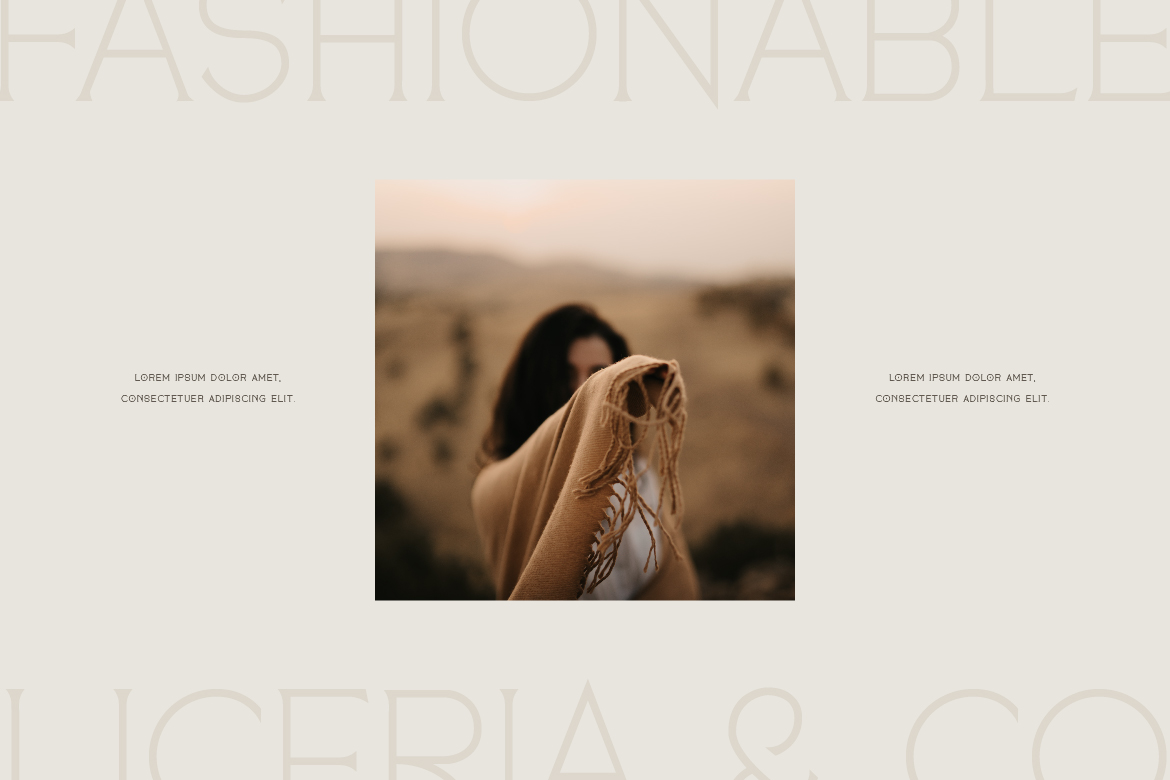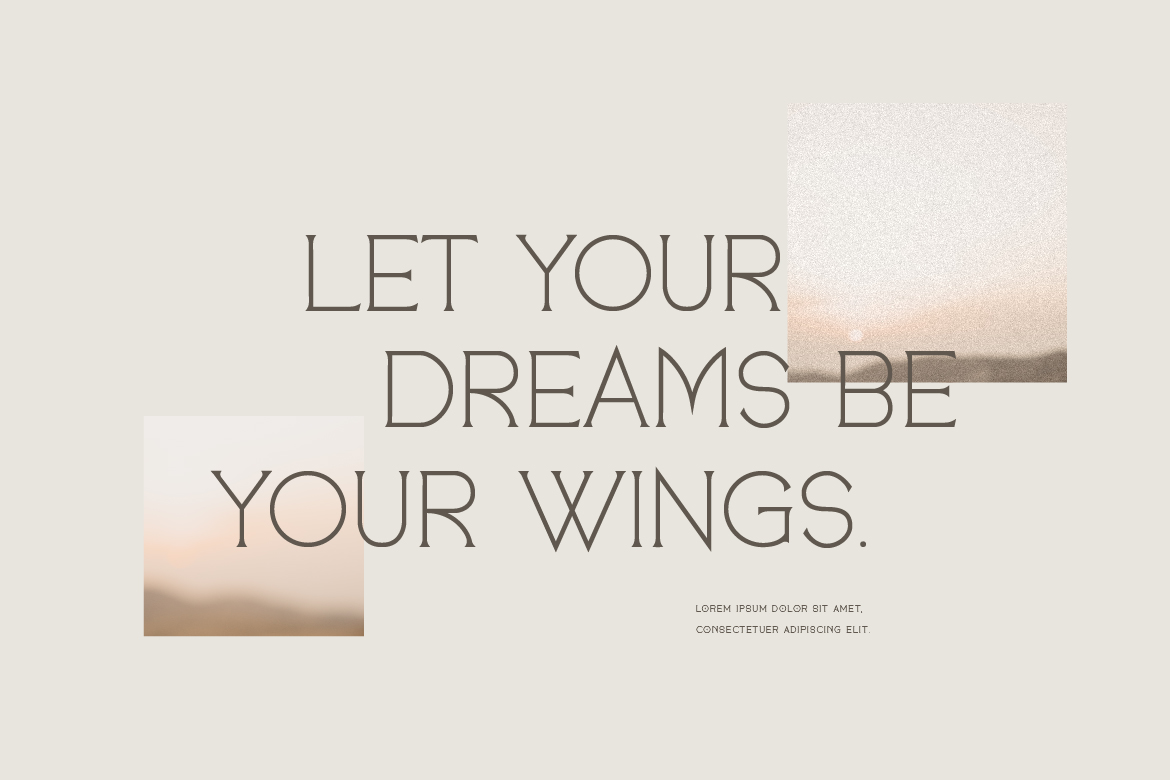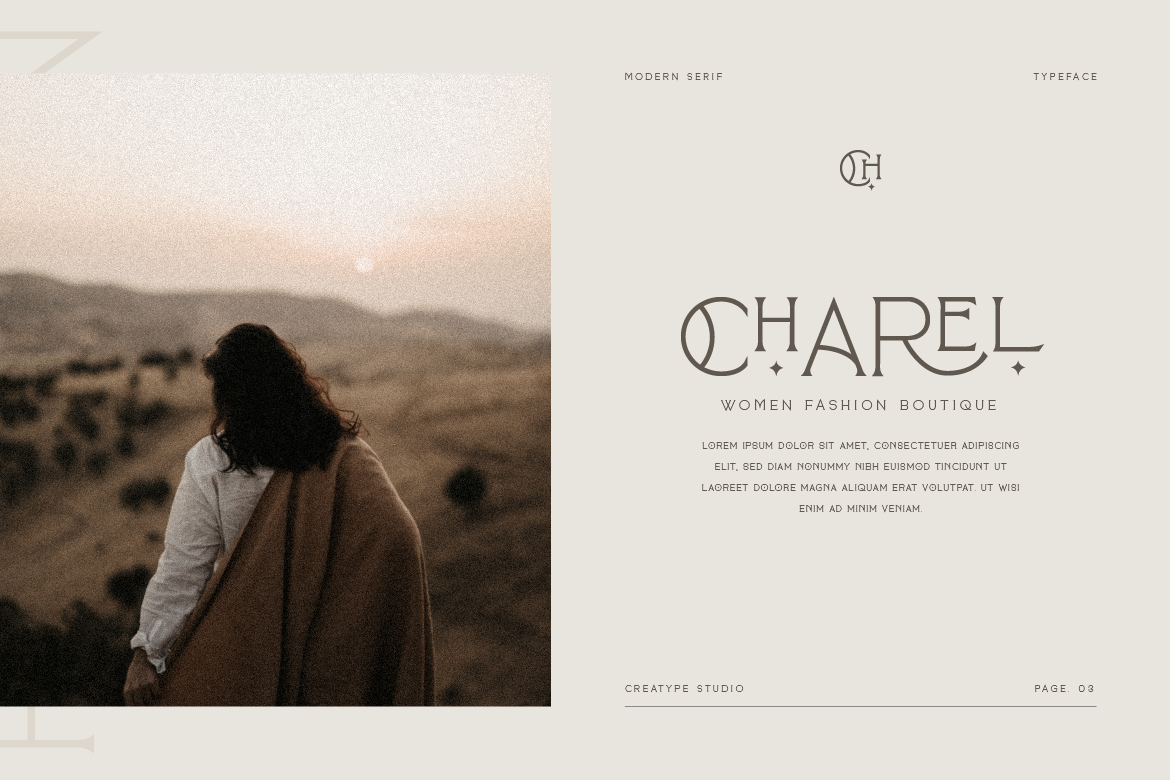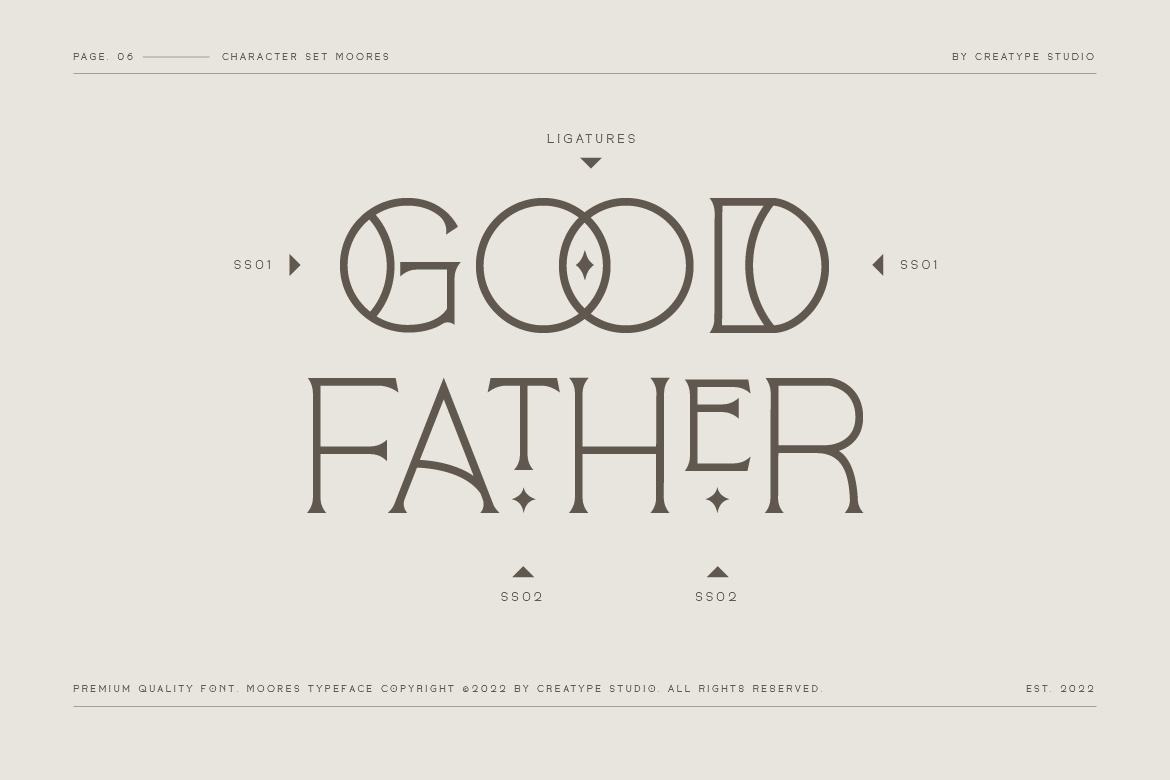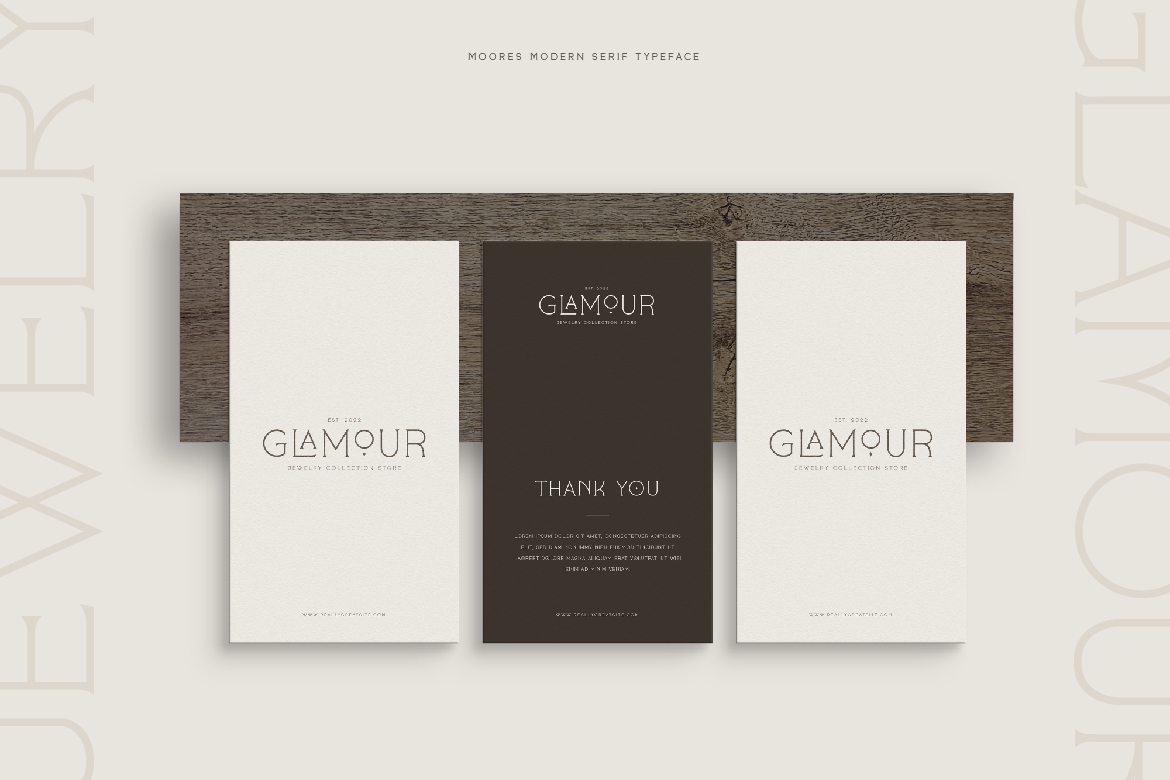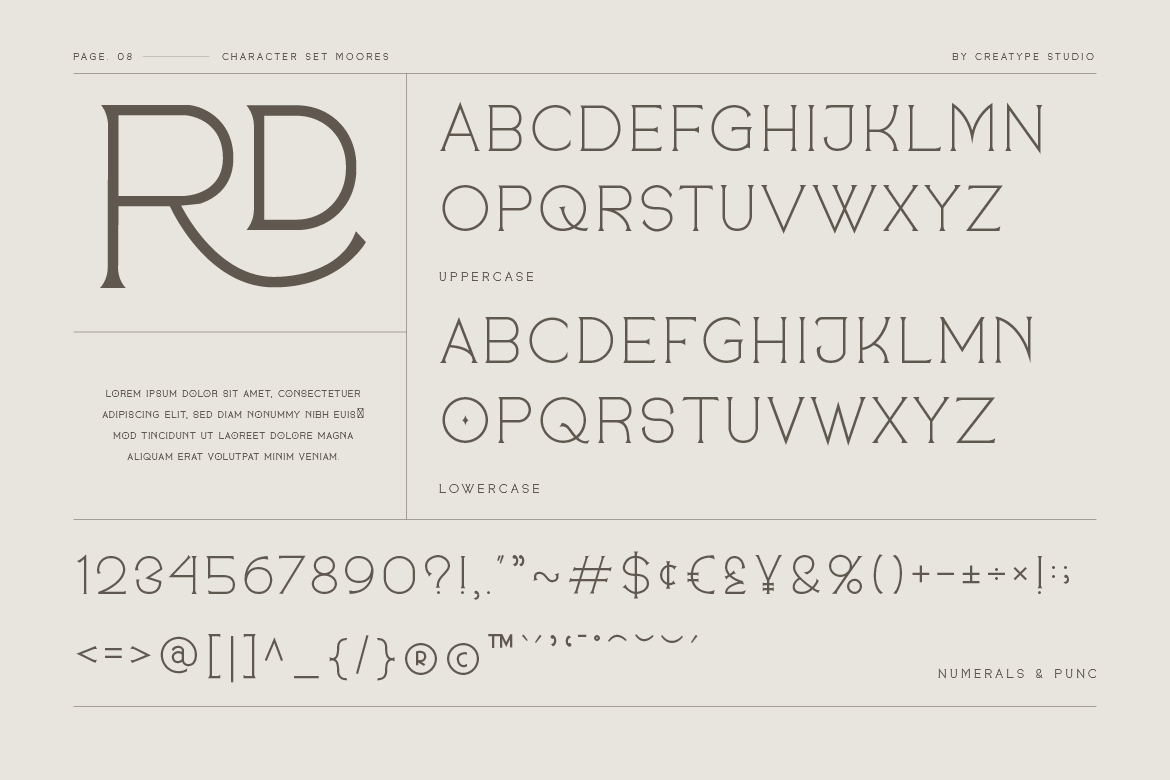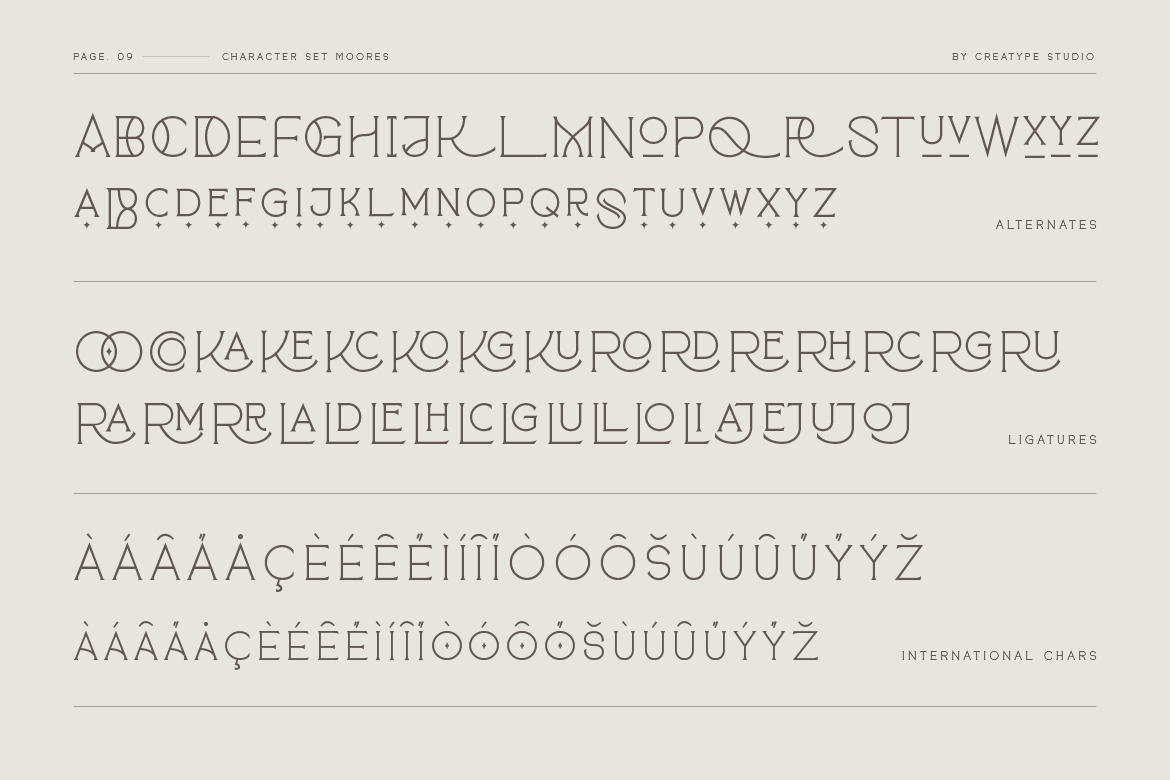
Moores Modern Serif
Moores is a modern serif as known for its geometric styles. Without losing the geometric style, Moore’s typeface still looks stunning. It’s feminine with a magical touch to make it more attractive. It suits beauty, fashion, logos, and more.
Moores is perfect for branding projects, logo, wedding designs, social media posts, advertisements, product packaging, product designs, label, photography, watermark, invitation, stationery and any projects that need handwriting taste.
• Ton of glyphs
• Ligature & Alternate
• Fonts include multilingual support for; Afrikaans, Albanian, Czech, Danish, Dutch, English, Estonian, Finnish, French, German, Hungarian, Italian, Latvian, Lithuanian, Norwegian, Polish, Portuguese, Slovak, Slovenian, Spanish, Swedish.